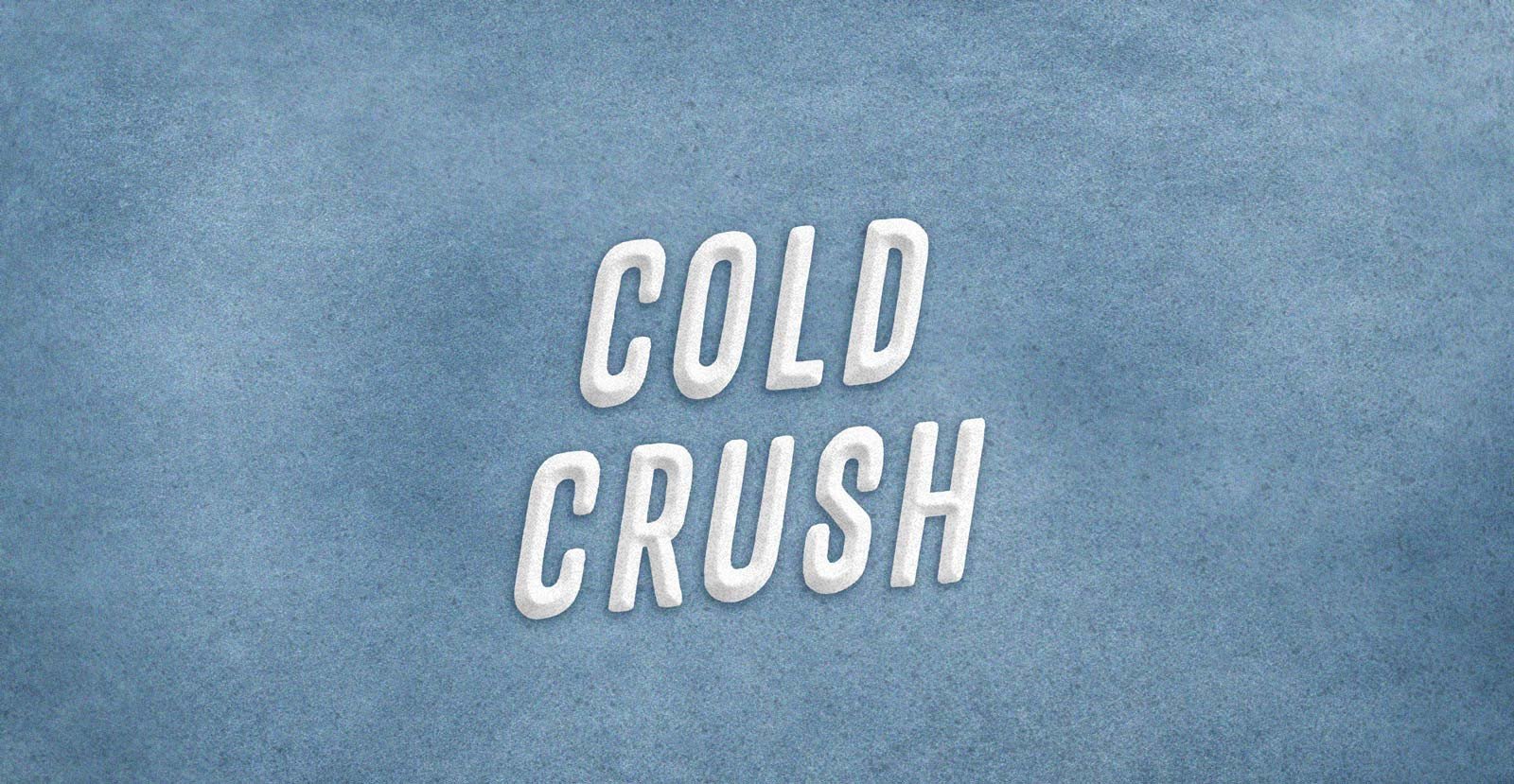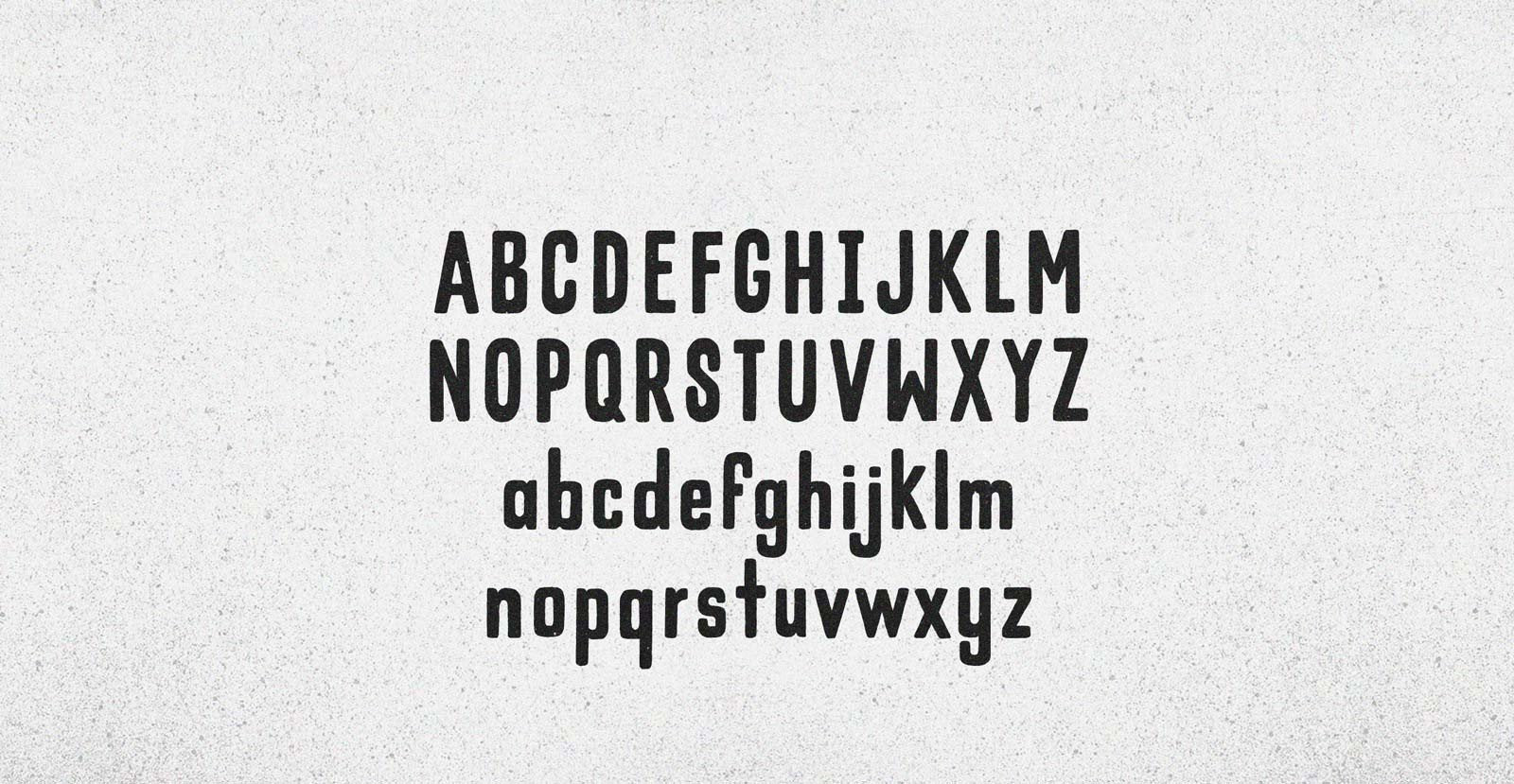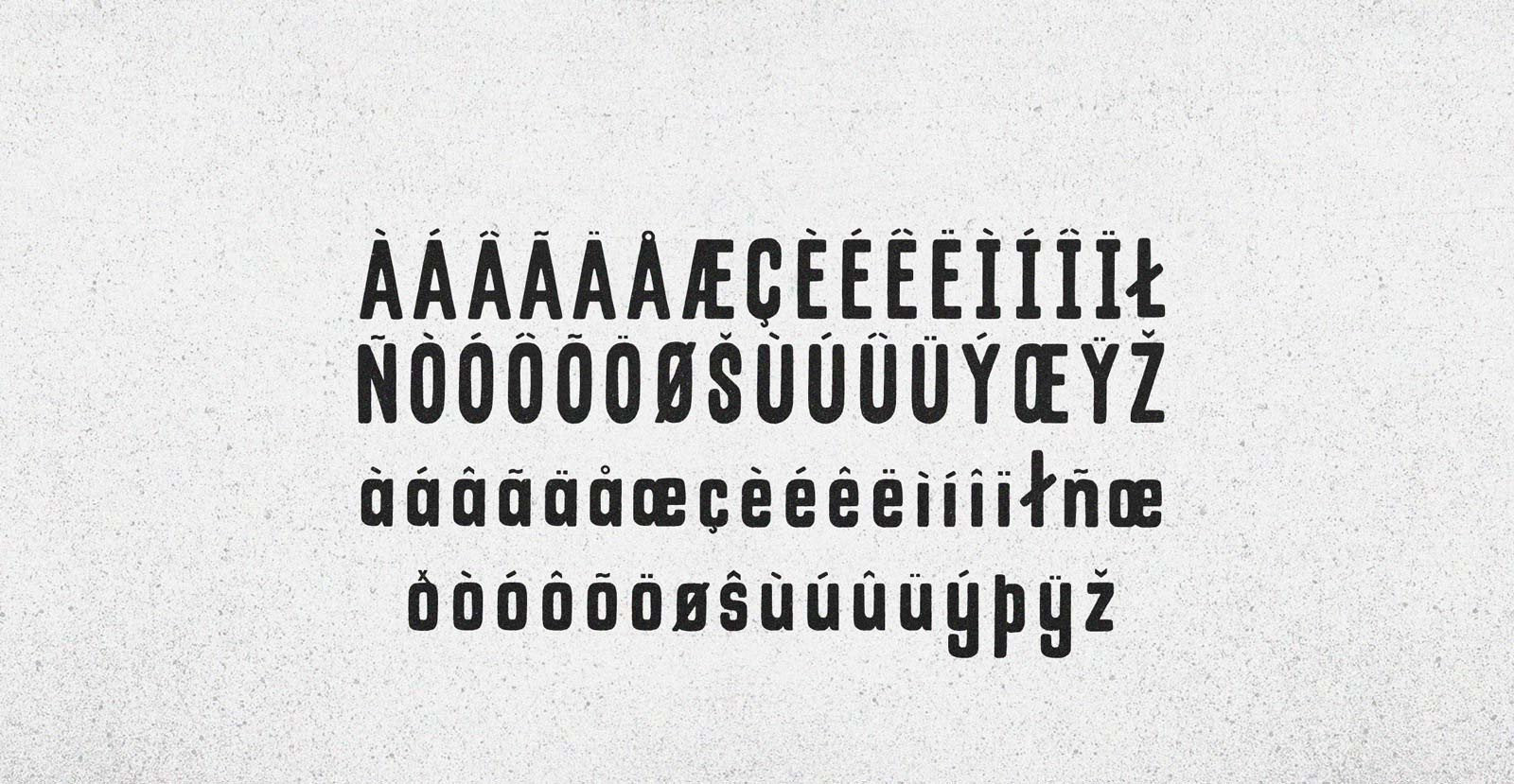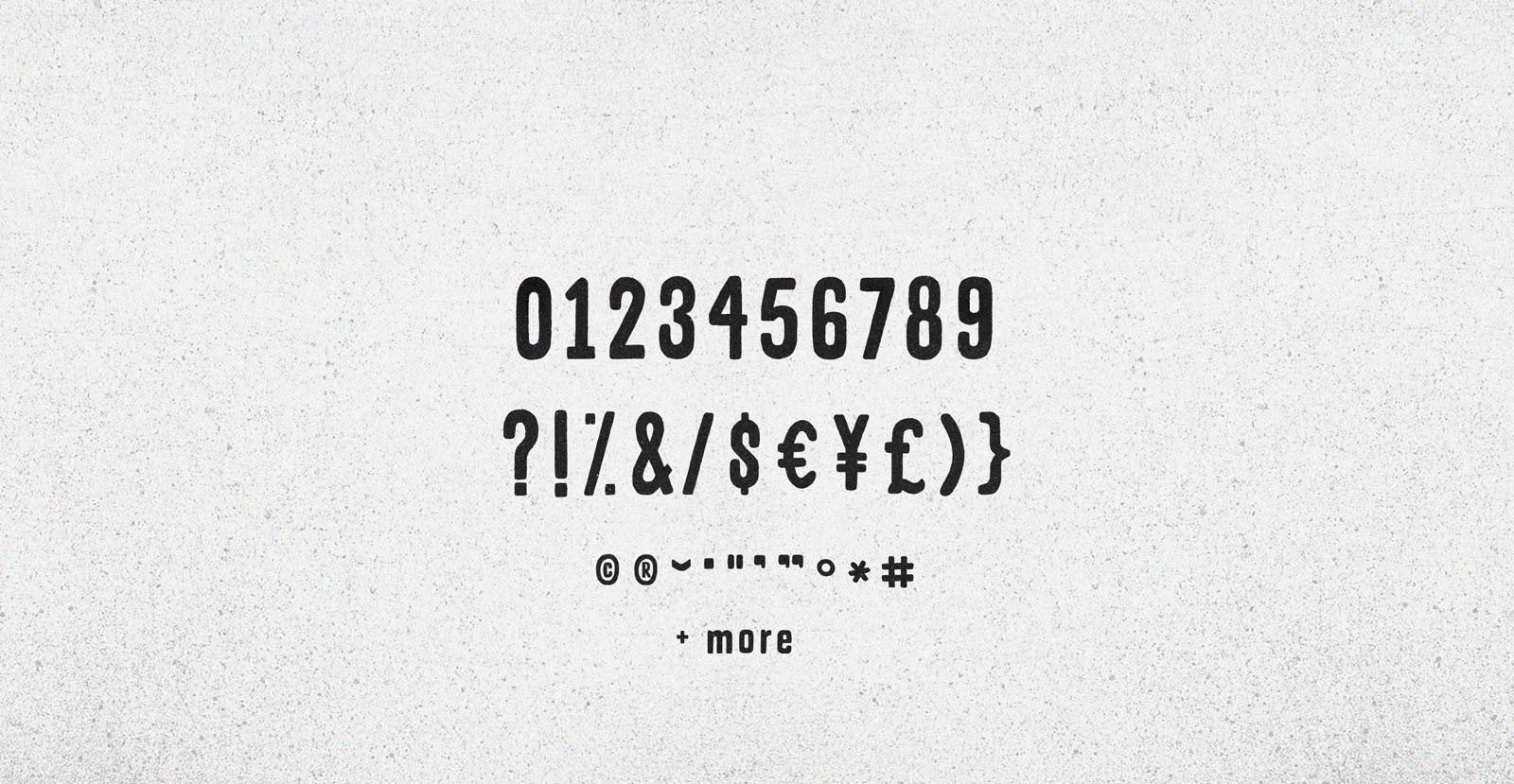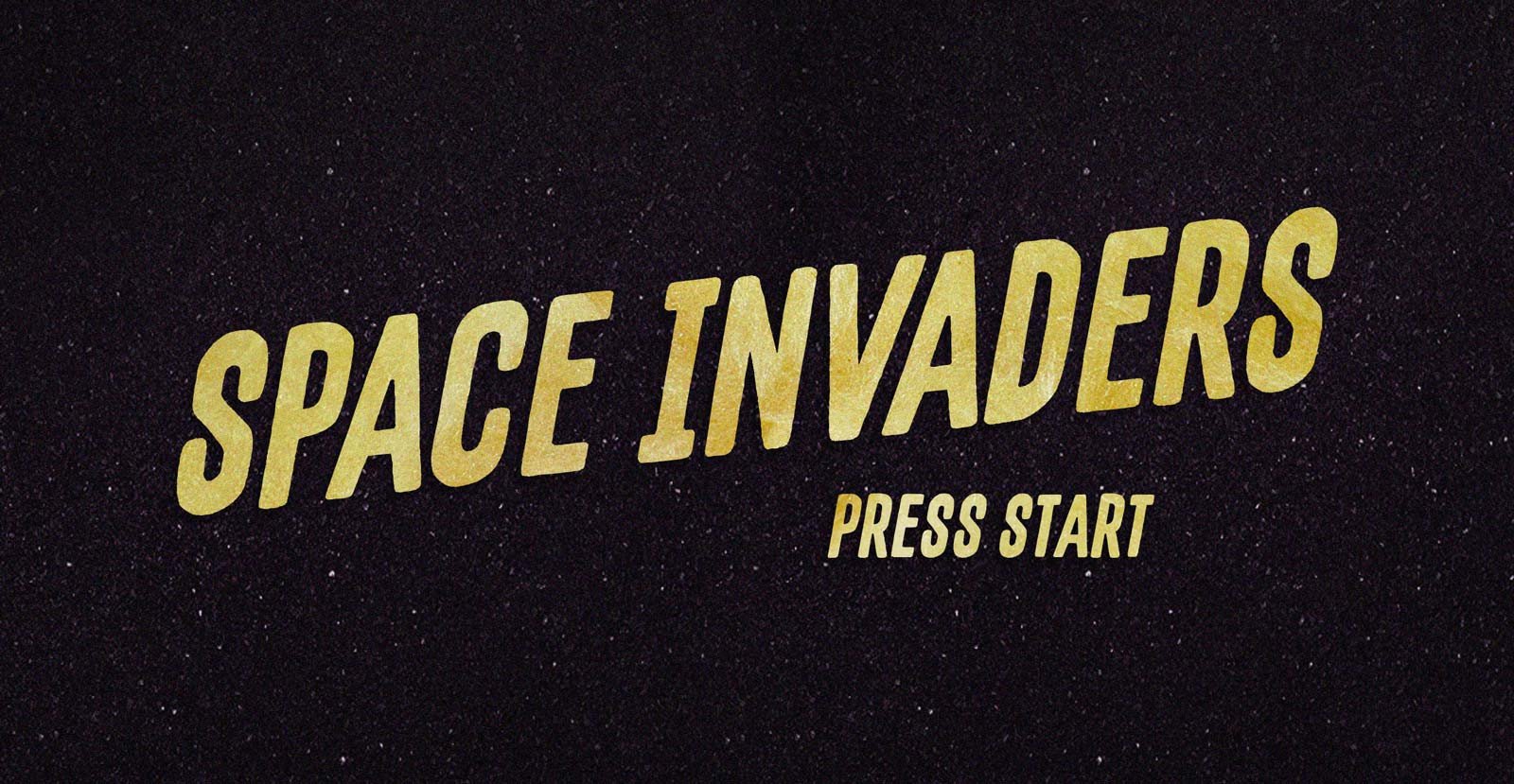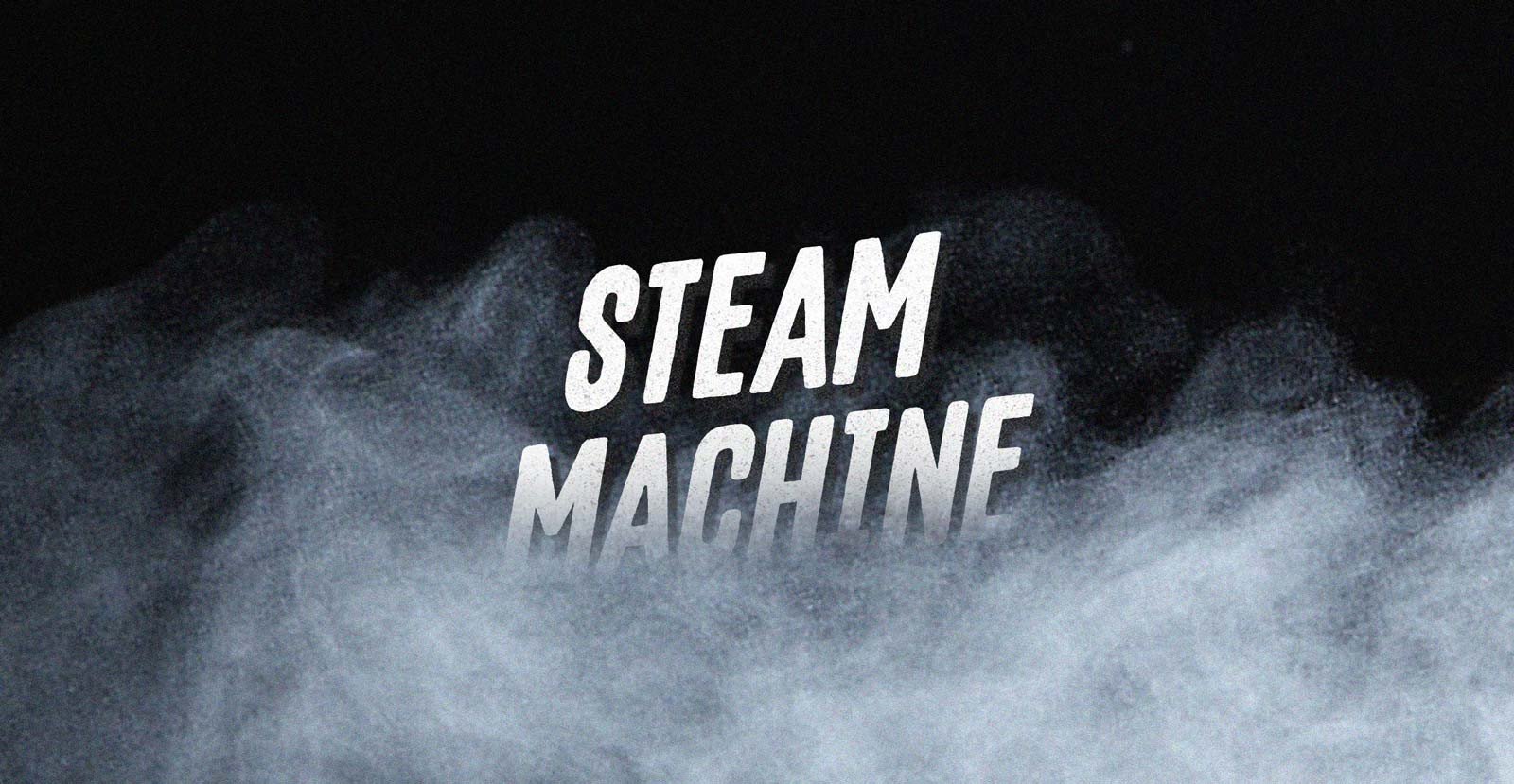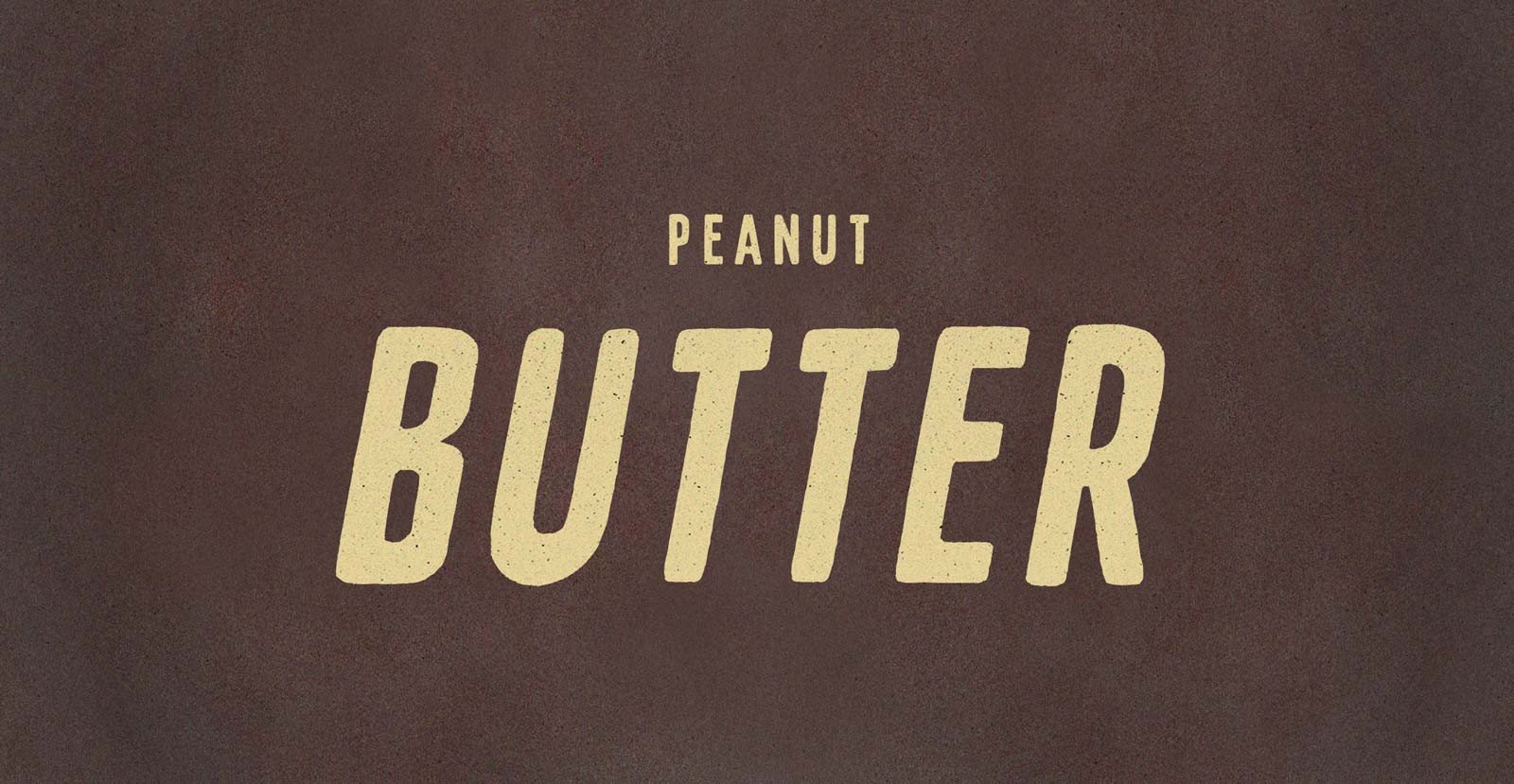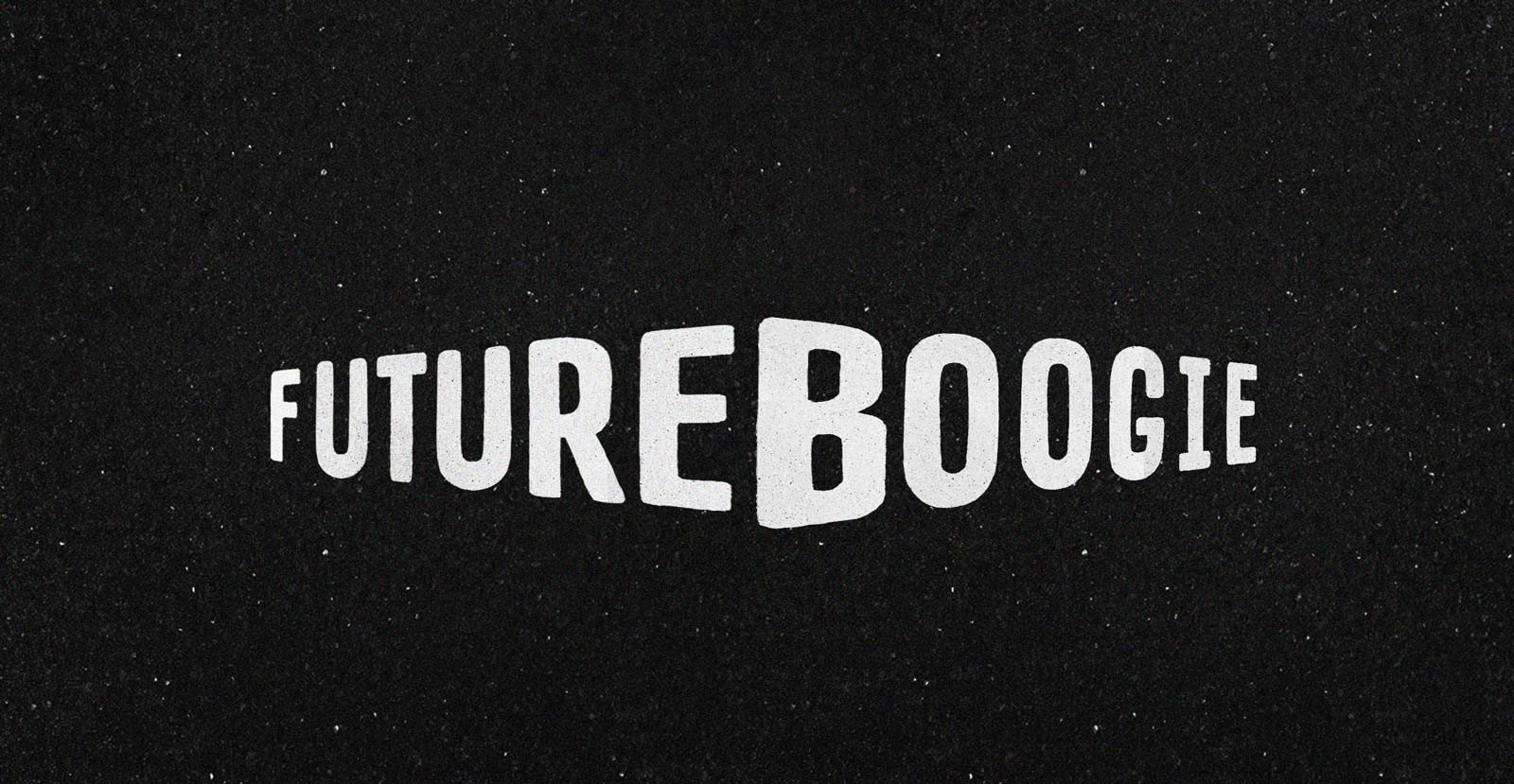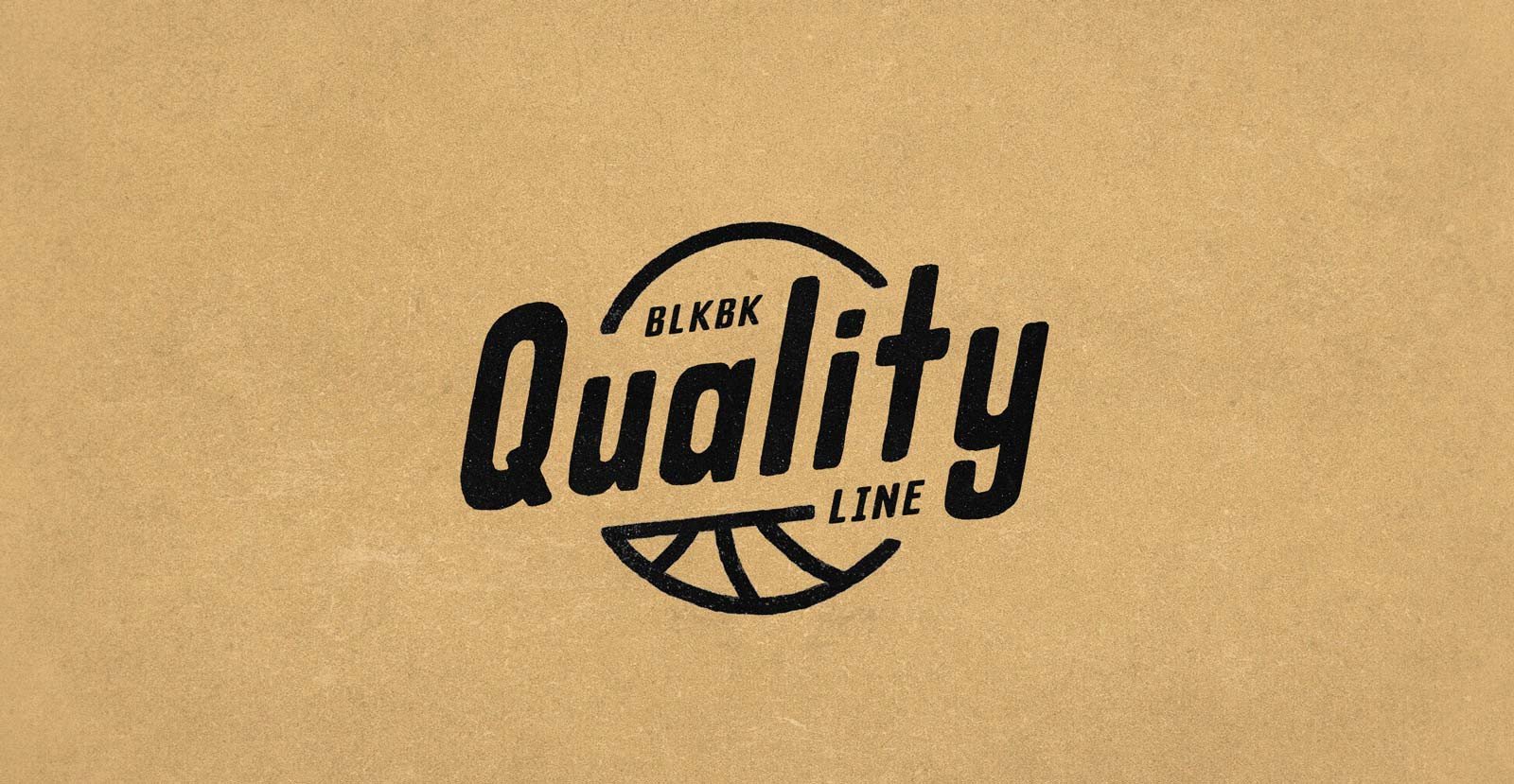
Cold Crush
Handwritten Sans Serif Font
"Where did it all go wrong?" is what Chris would have thought if he could have thought around the screaming pain in his shattered femur. Jumping out of a helicopter on skis had seemed like the ultimate ride until the whole side of the mountain collapsed under him. Now it was just four thousand dollars he'd never get back. But the more pressing concern at hand was the three meter deep Cold Crush of snow above him.